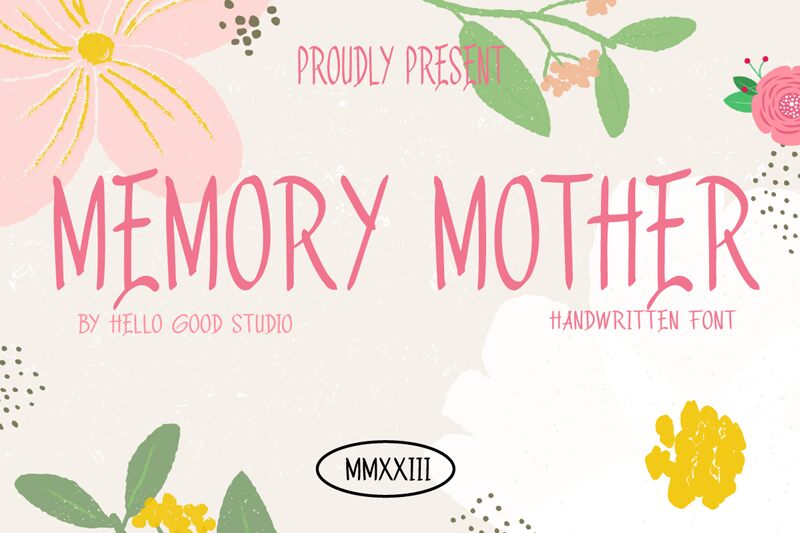
Memory Mother
Memory Mother font by Studio Hello Good is a free handwritten font with an artistic, nostalgic feel. Its expressive and flowing characters bring casual charm to your creations. Each word written with this vintage-feel typeface looks both natural and specially designed.
Memory Mother font can be used in branding designs, logos, product packaging, invitations, advertising signs, posters, and website titles. It’s beautiful on printed material too such as magazines or books.